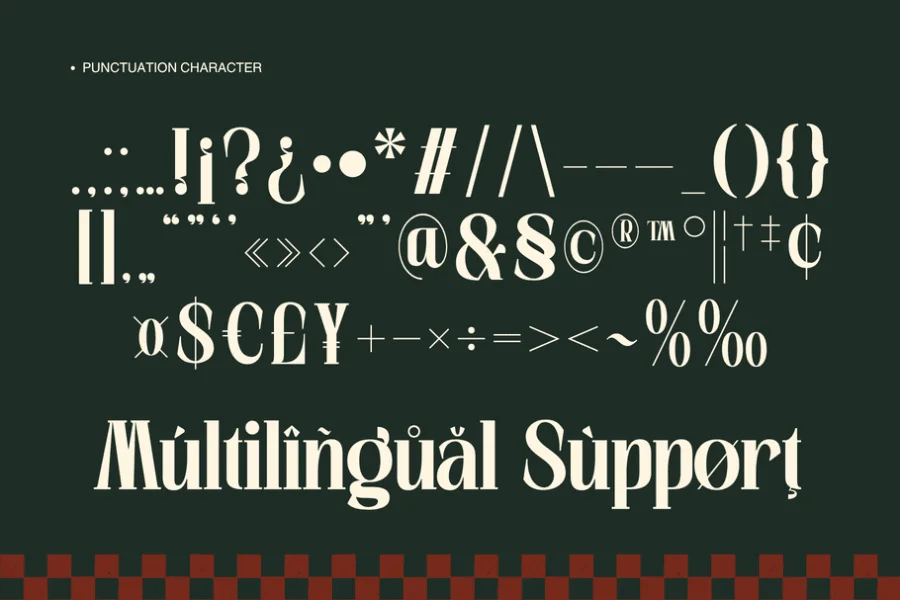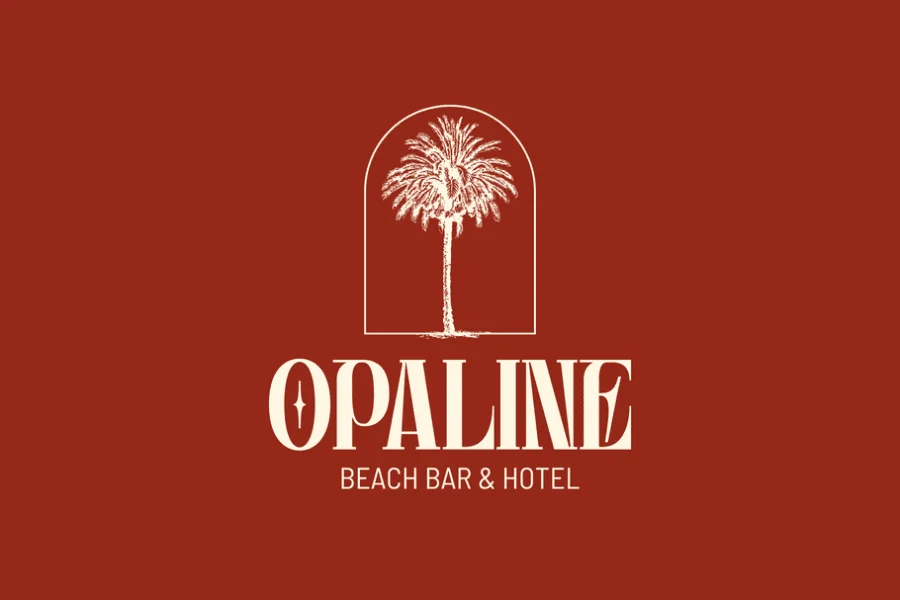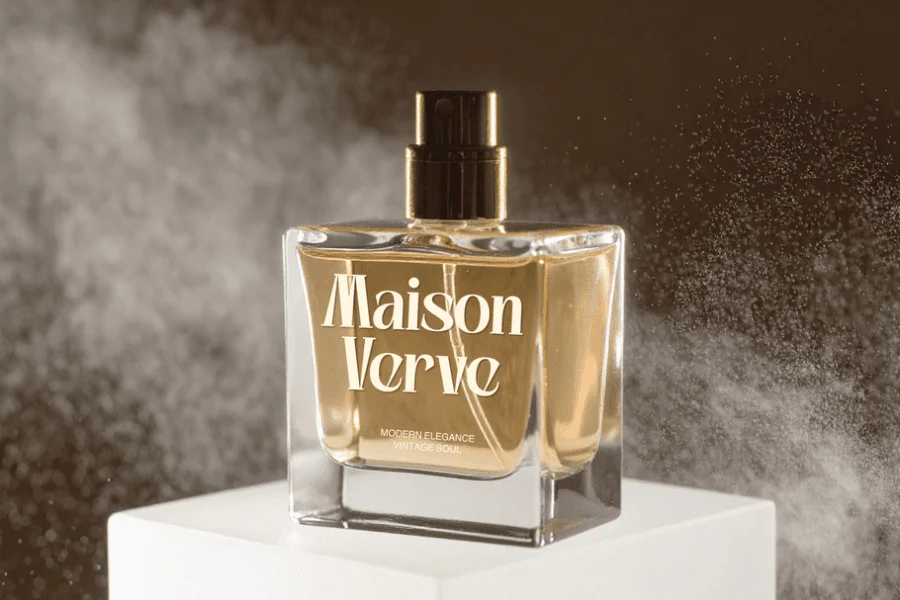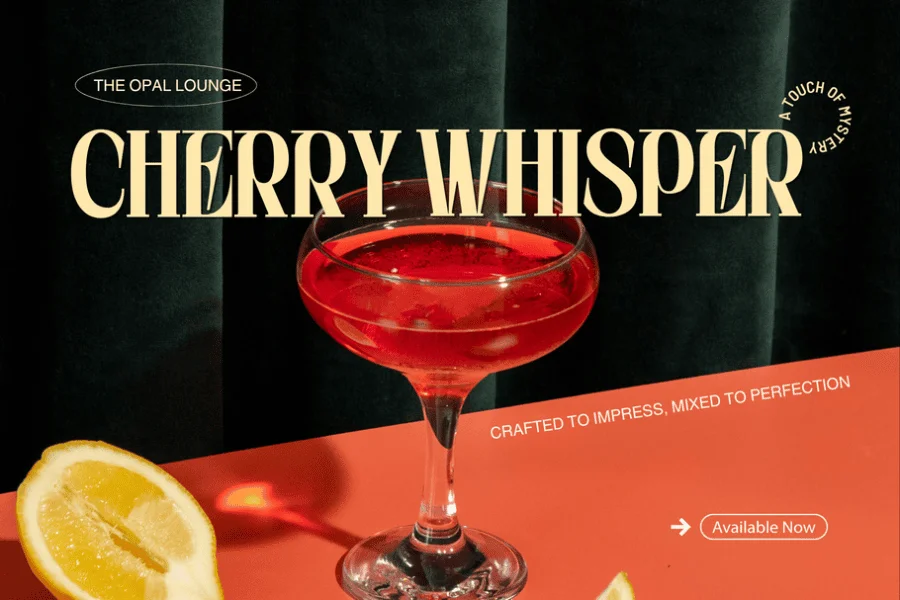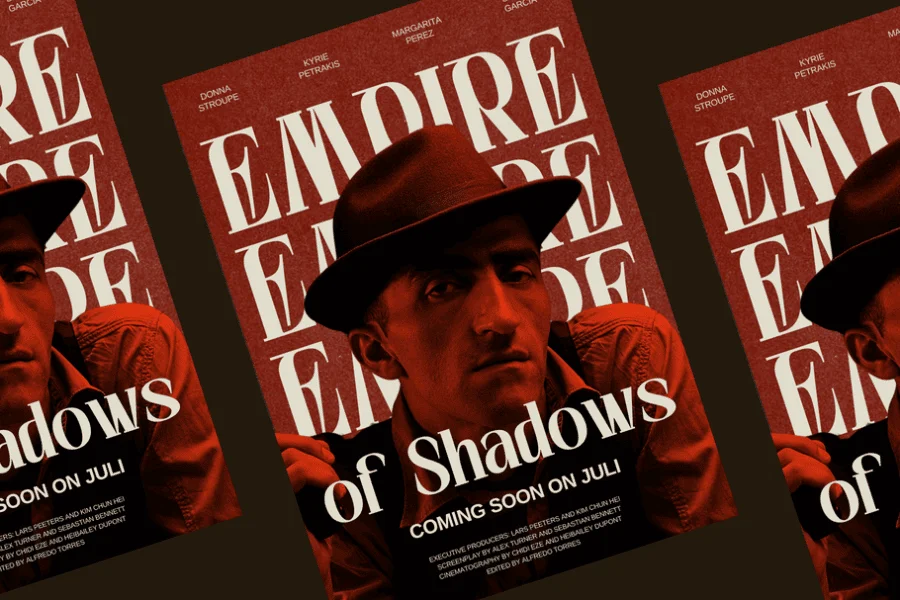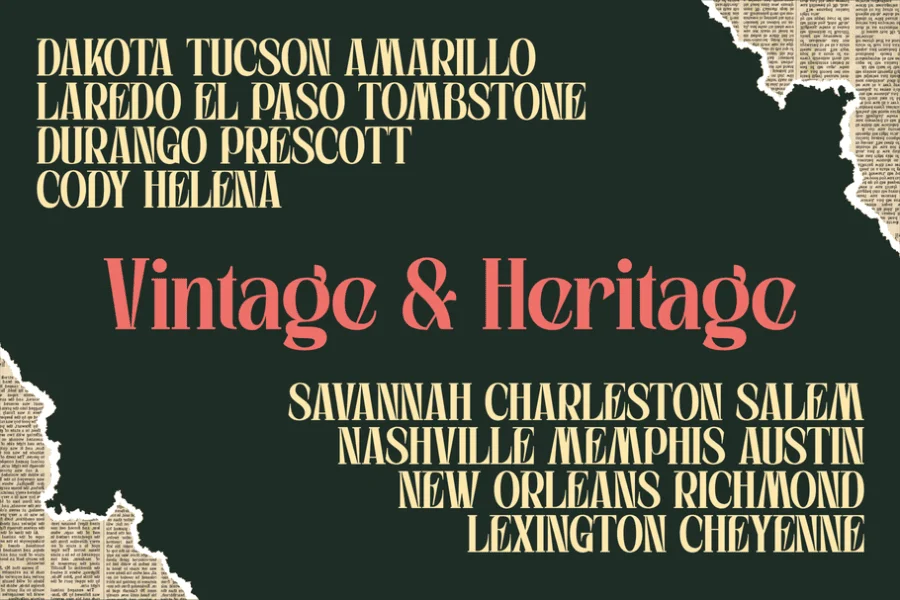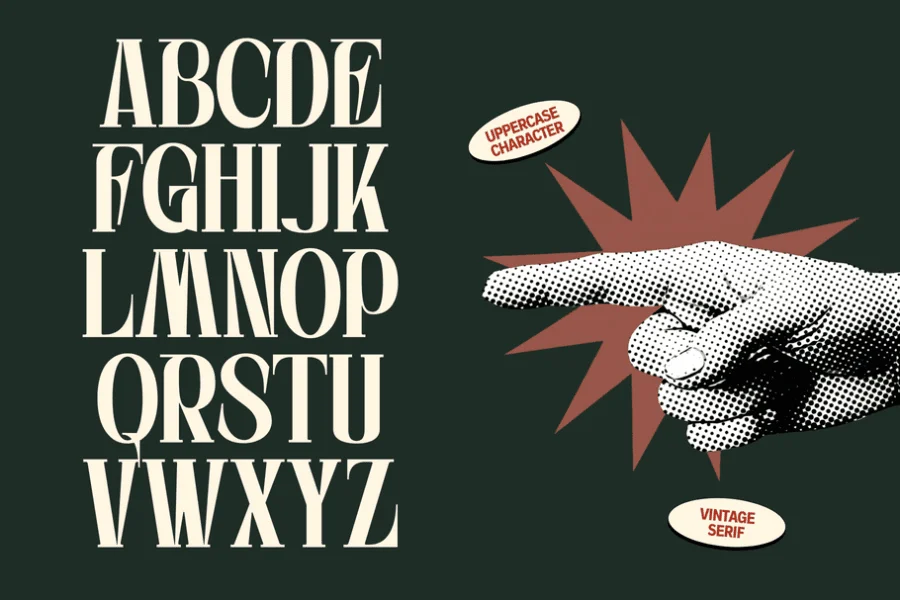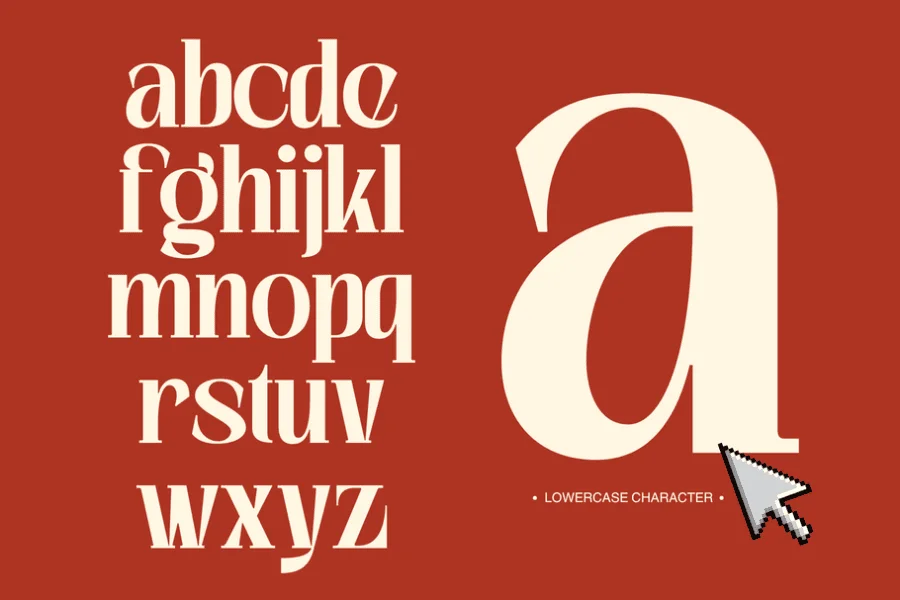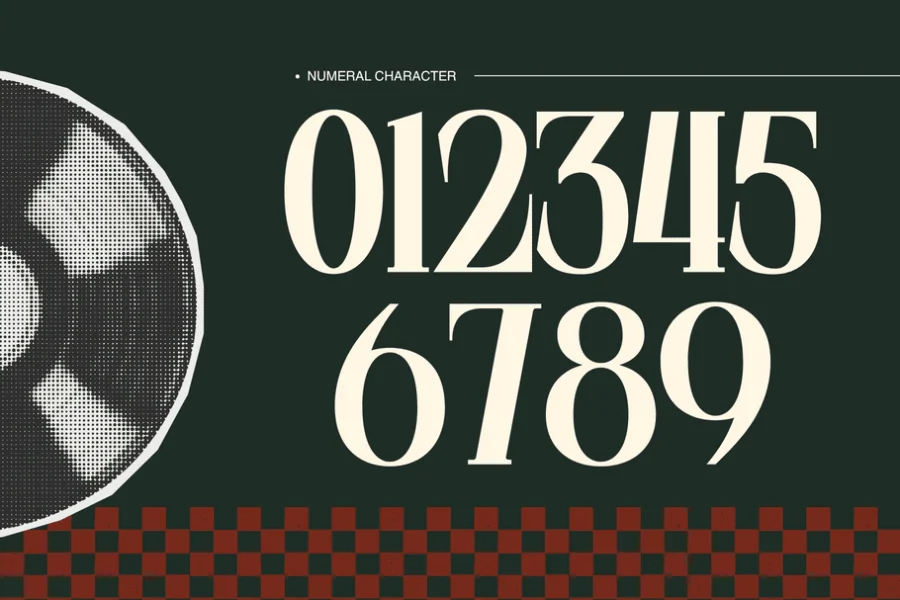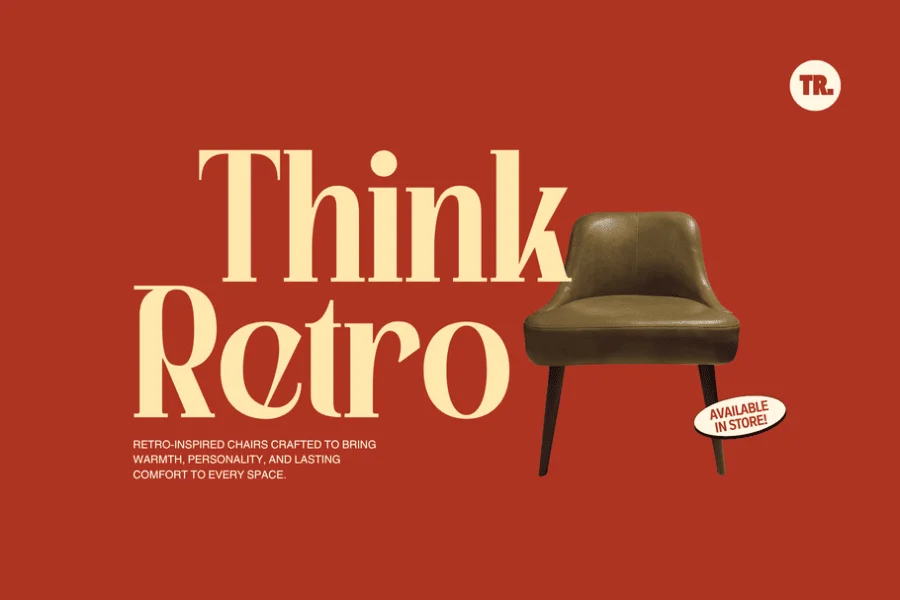
Westford is a modern serif typeface that blends vintage charm with contemporary sophistication. Featuring elegant high-contrast letterforms, refined curves, and distinctive retro-inspired details, it is designed to create bold and memorable visual identities. Perfect for logos, branding, fashion labels, packaging, editorials, luxury products, poster film, hotel logo, wedding and promotional materials. Westford delivers a timeless aesthetic that combines classic heritage with modern style, making every design feel confident, premium, and effortlessly distinctive.